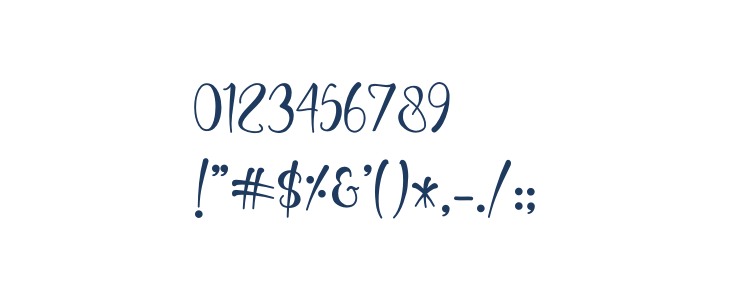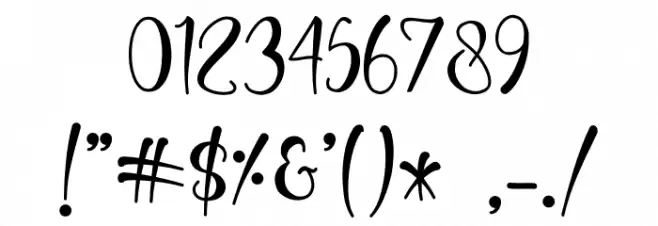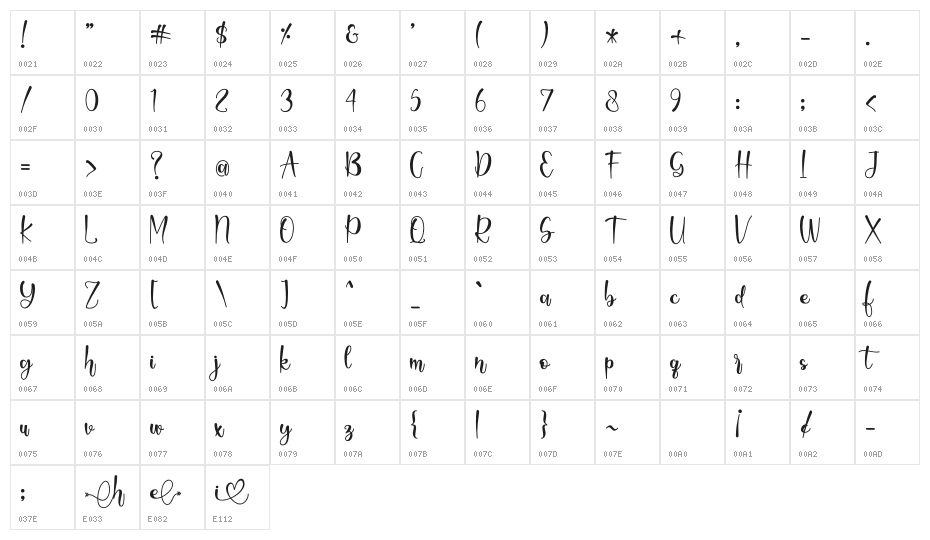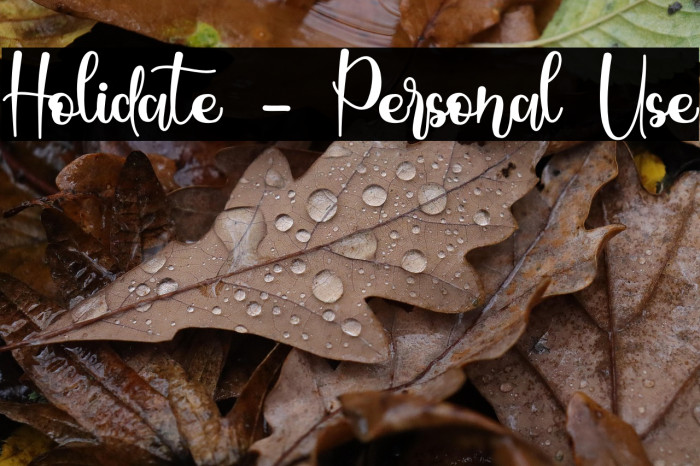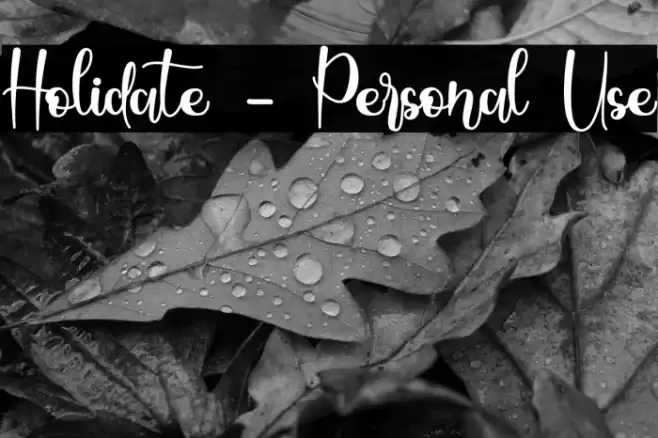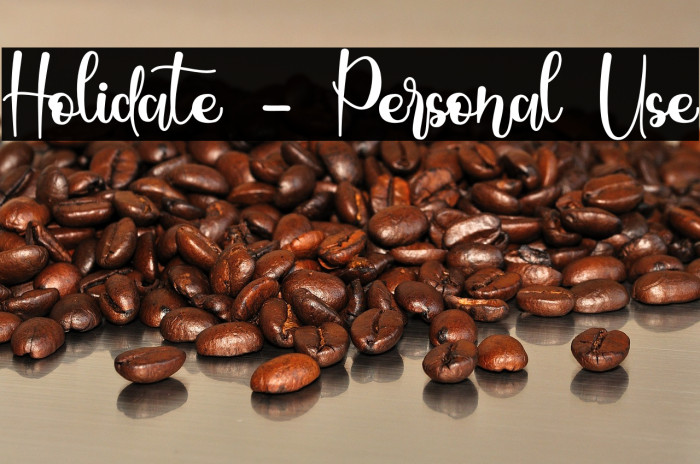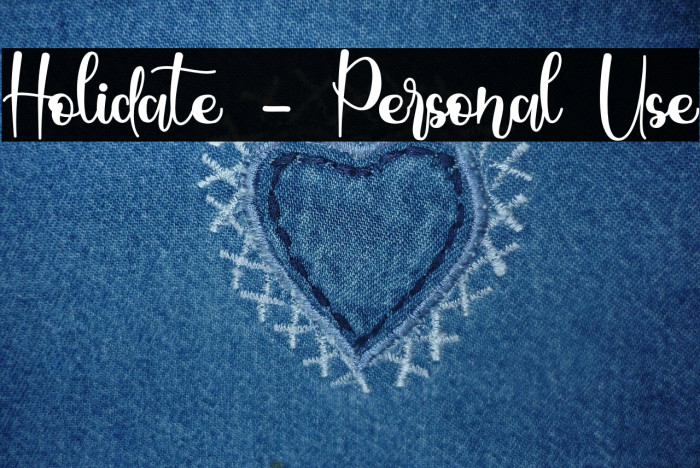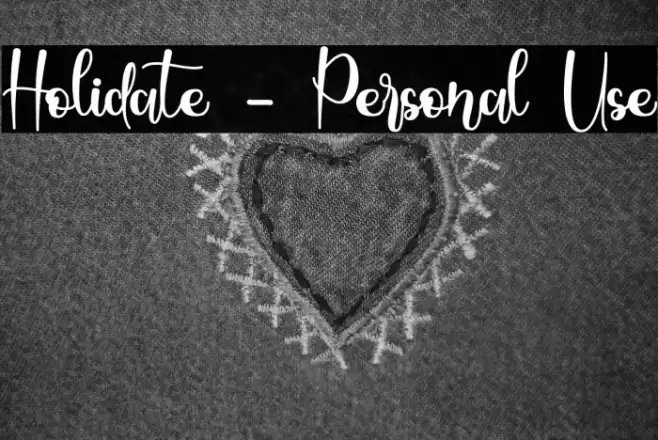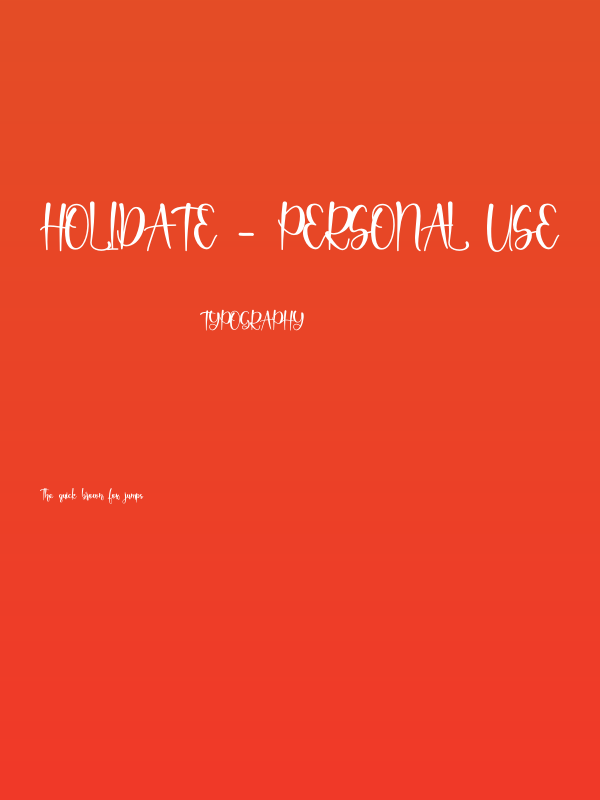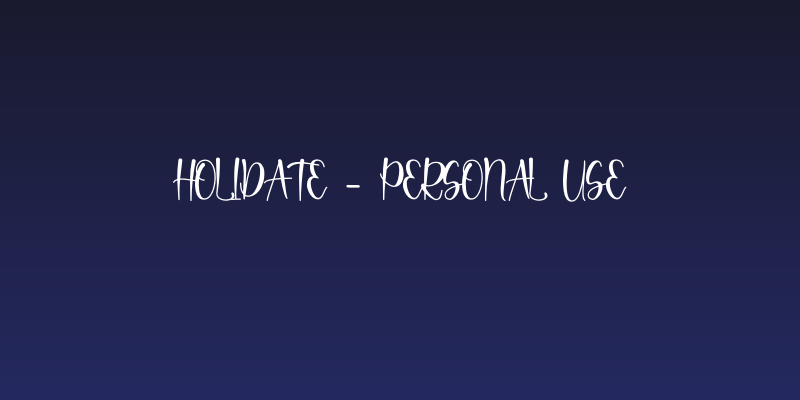
Holidate - Personal Use Font
Holidate - Personal Use Description
This font features a playful and whimsical script style with a hand-drawn appearance. The uppercase letters are tall and elegant, with a slight slant and varying stroke widths that add a dynamic feel. The lowercase letters maintain a consistent flow, with loops and curves that enhance its decorative nature. Numbers and special characters are designed to match the overall aesthetic, providing a cohesive look. The font's unique style makes it suitable for creative and informal projects.
Use CaseLogos, Invitations, Greeting Cards
Proposed ProjectsIdeal for greeting cards, invitations, posters, and branding projects that require a personal and artistic touch.